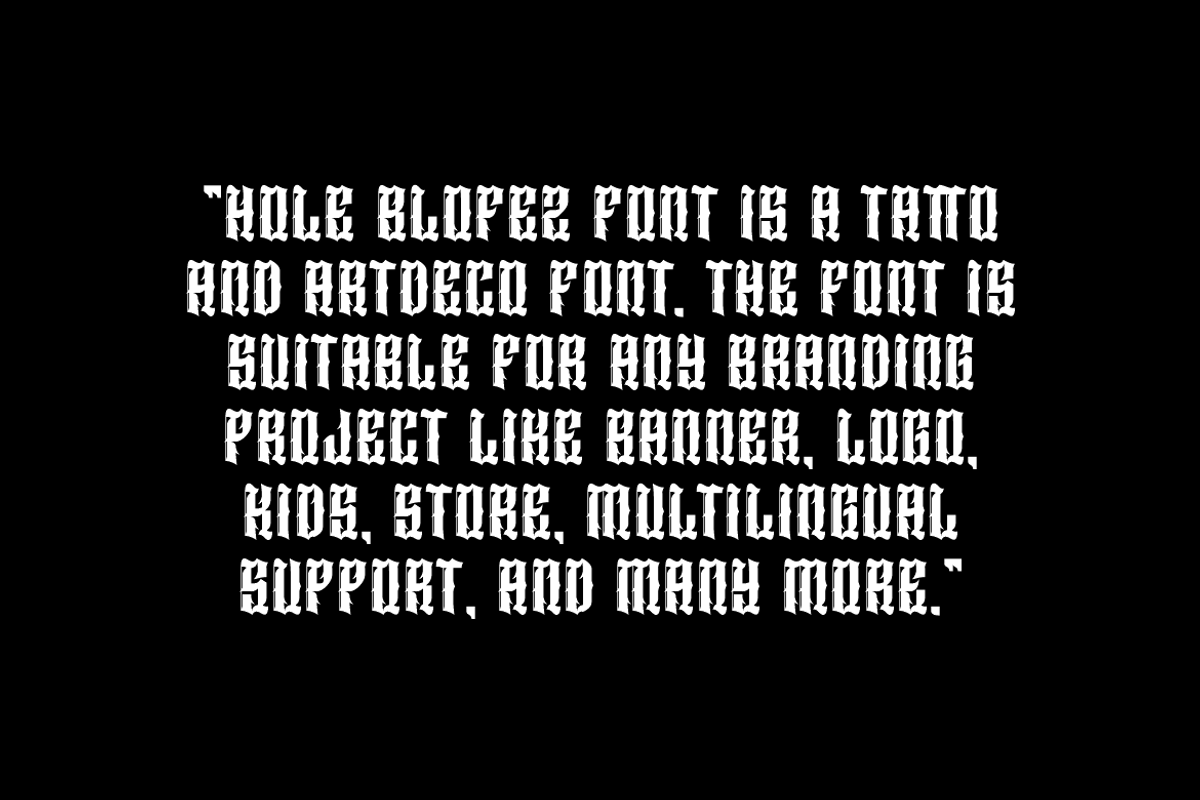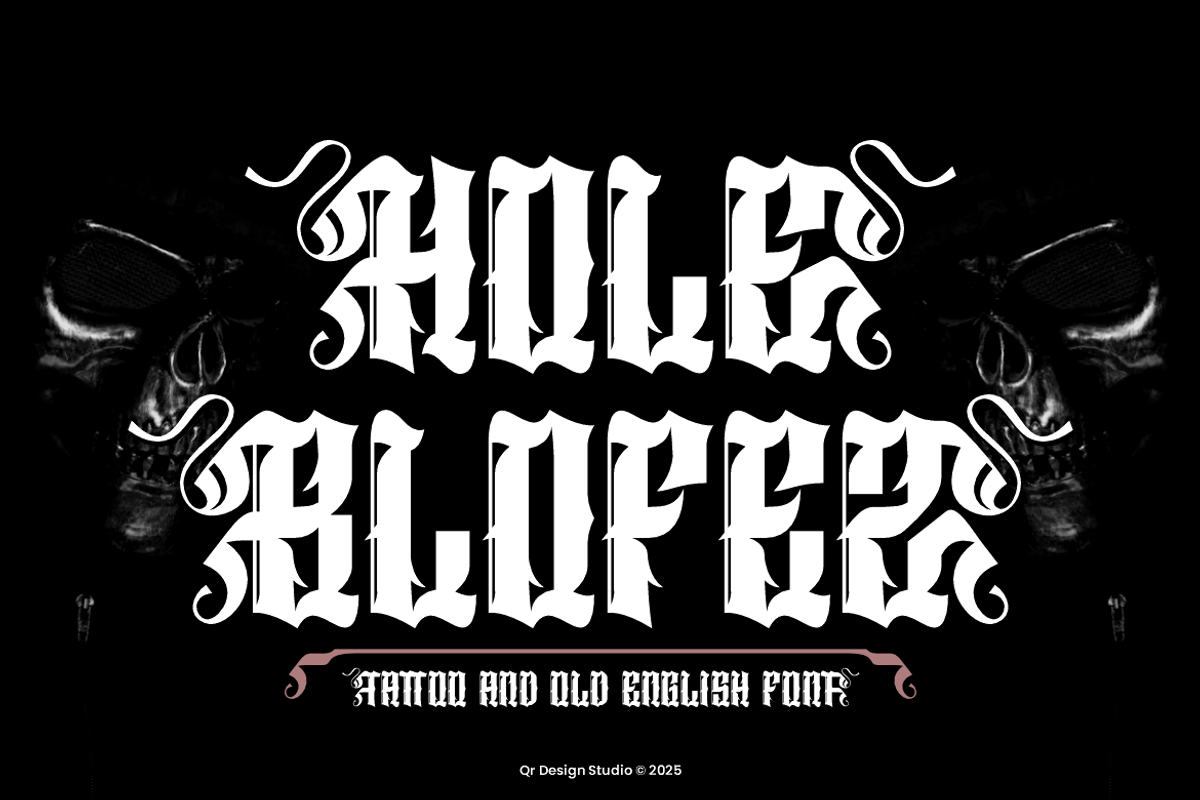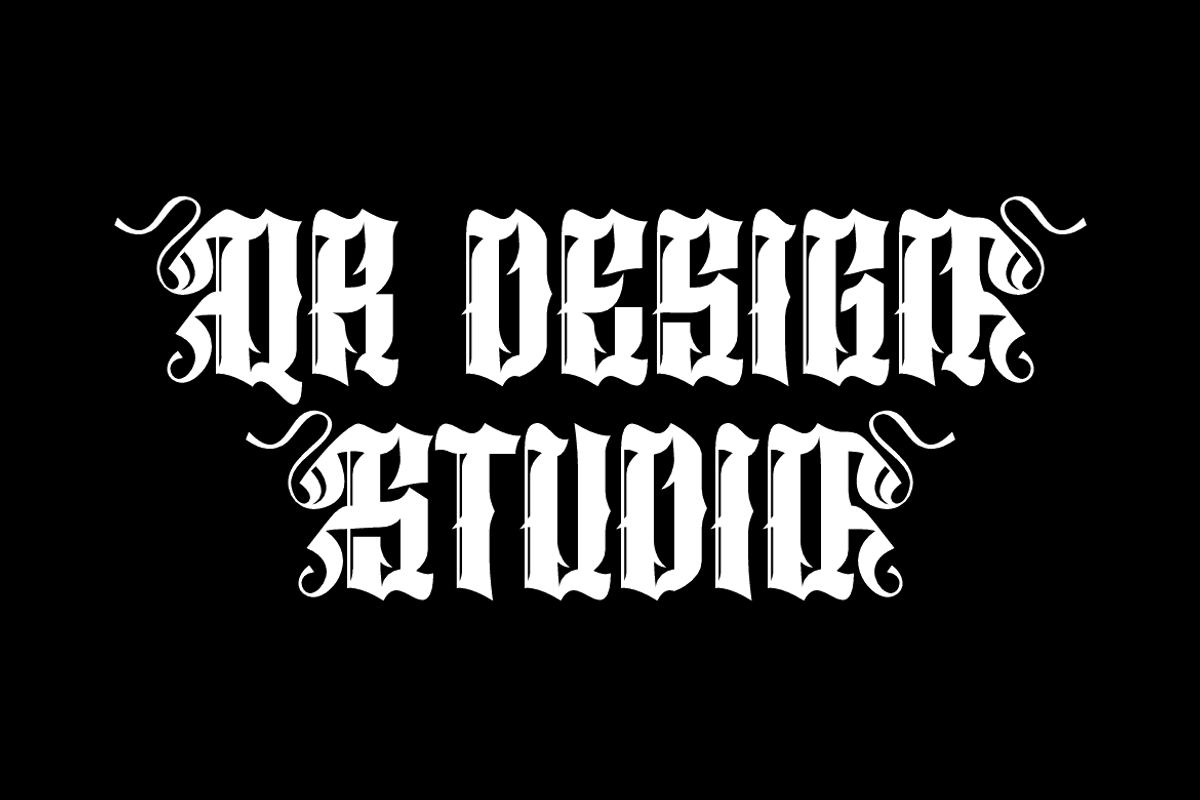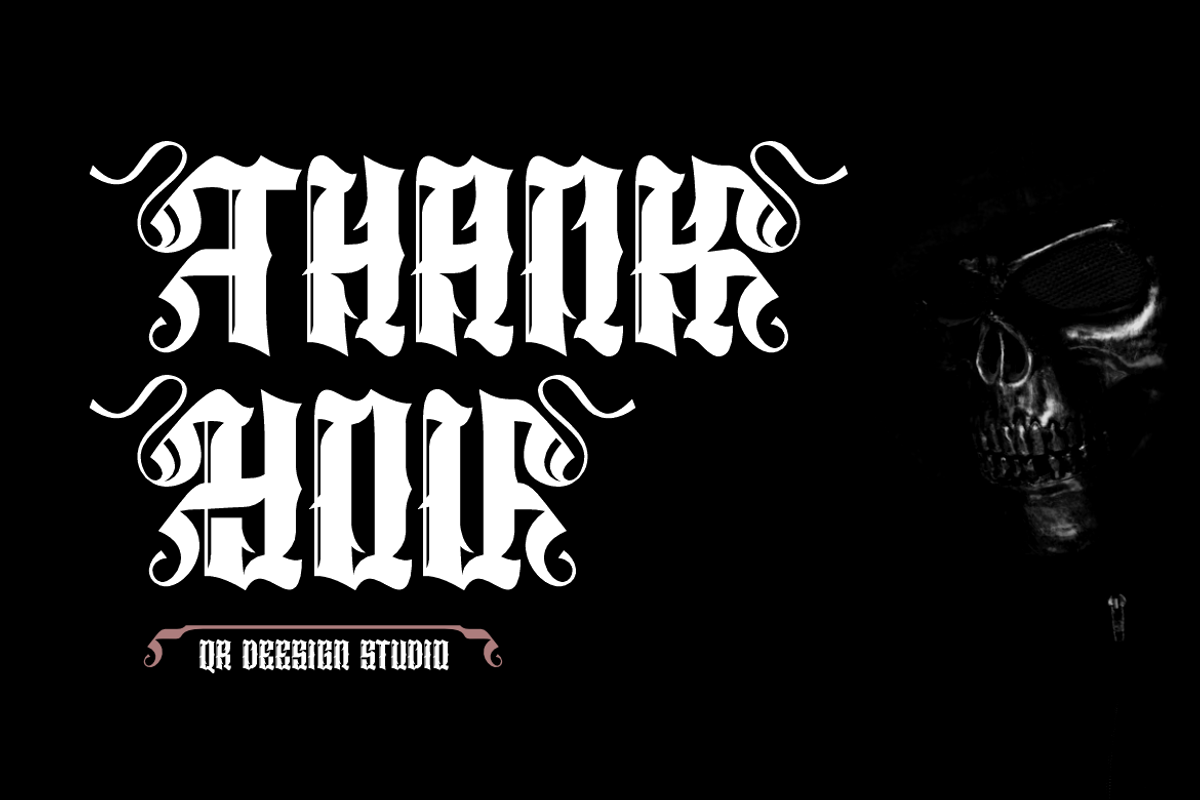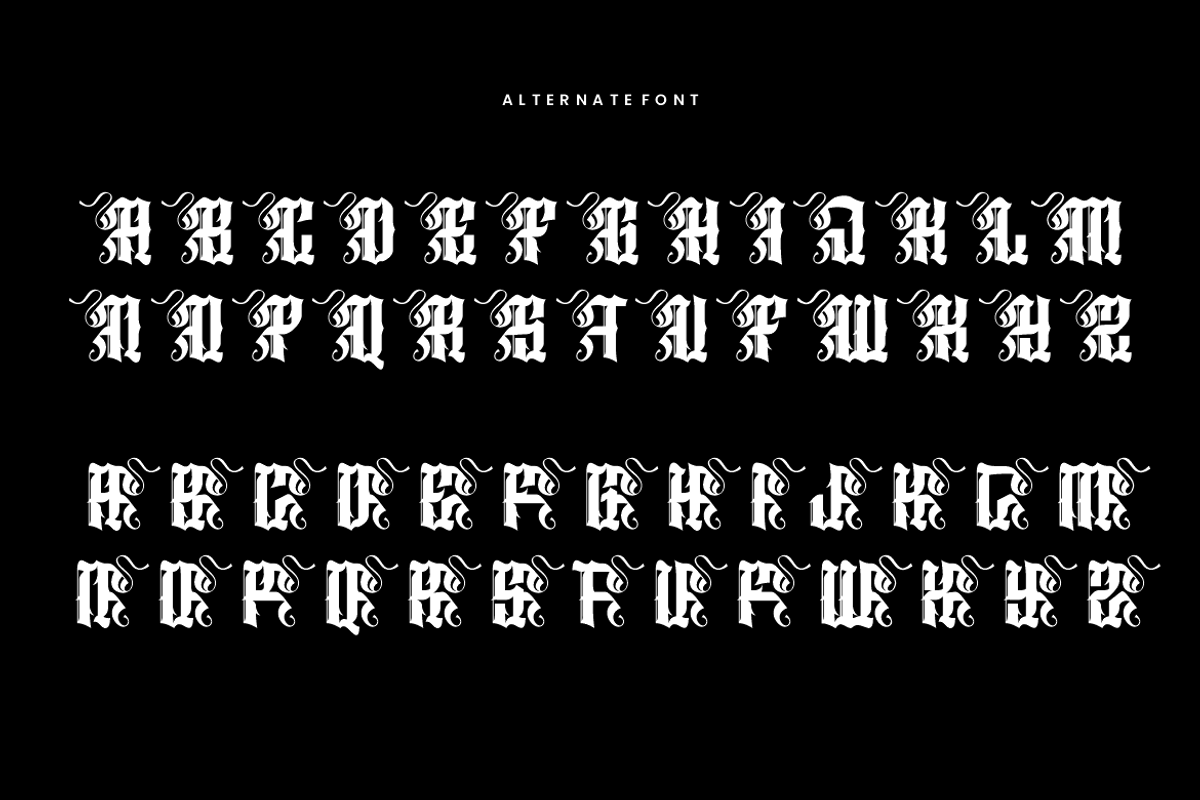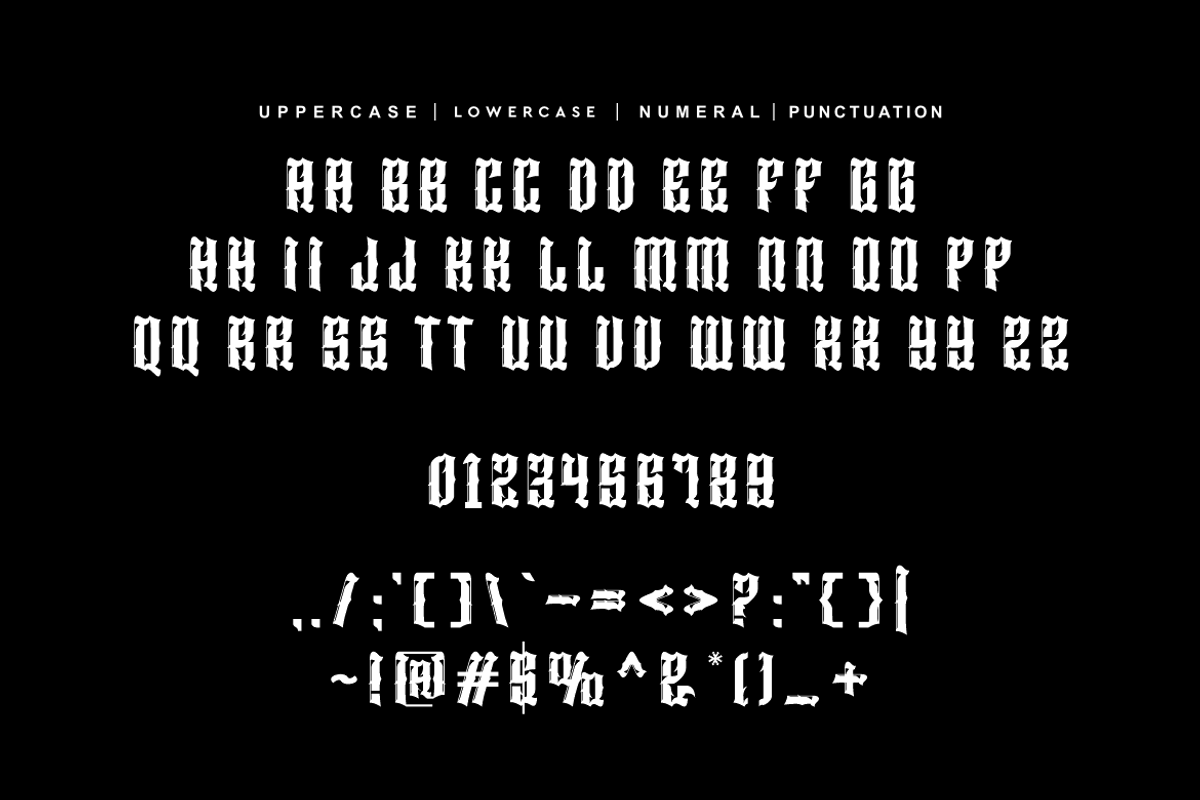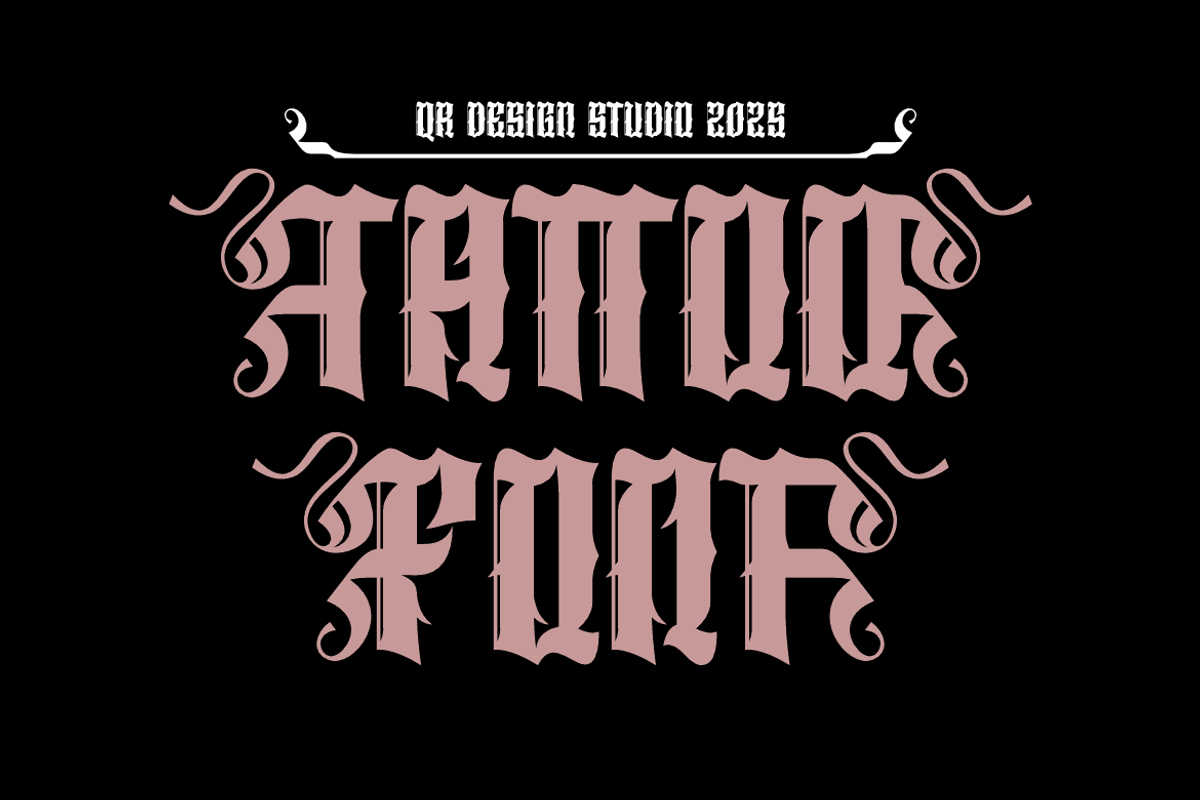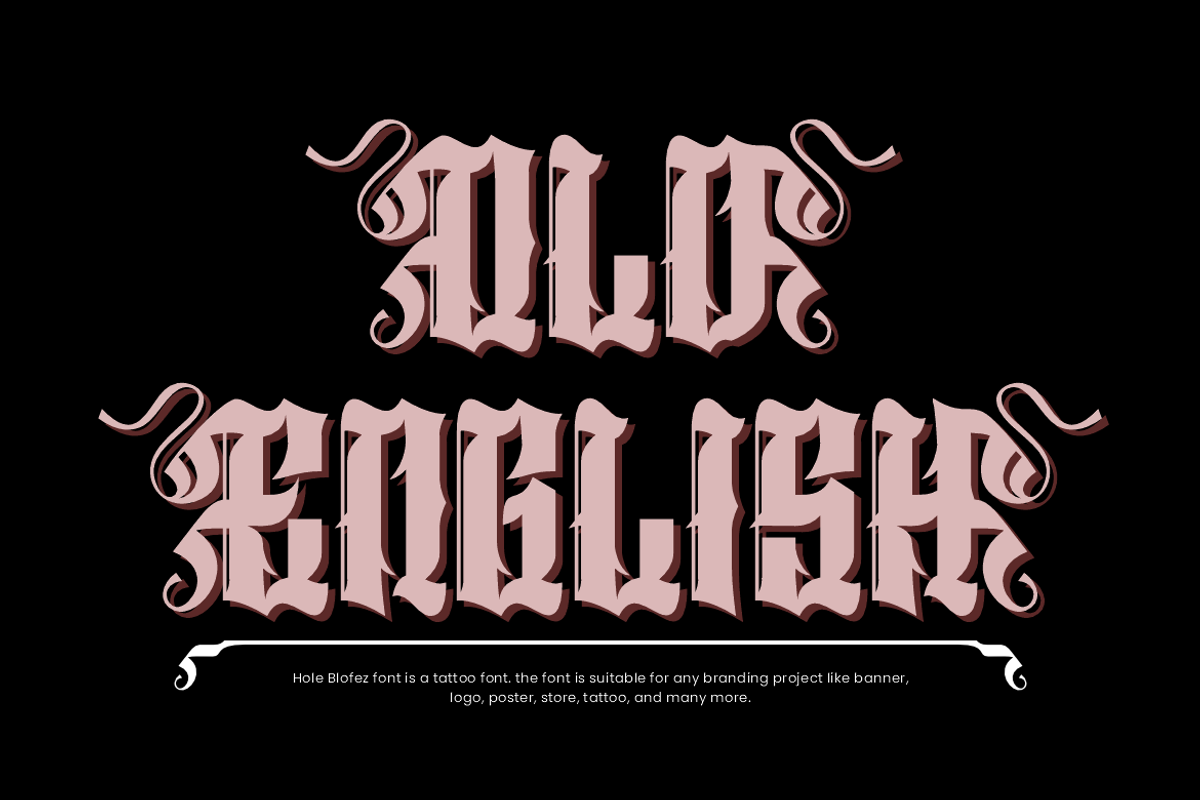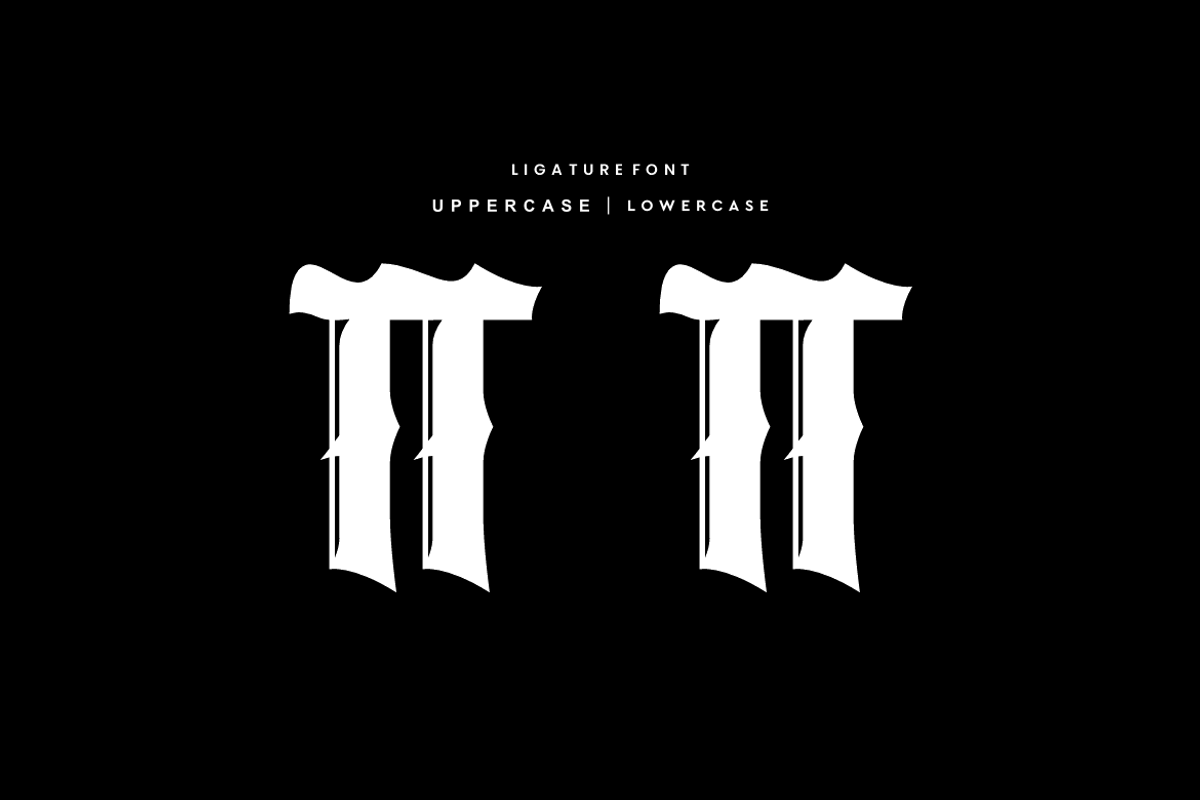
Hole Blofez - Old English Font
Hole Blofez Font is a artdeco and authentic display font. The font is suitable for any branding project like poster, logo, tattoo, and many more. Outstanding in a wide range of contexts.